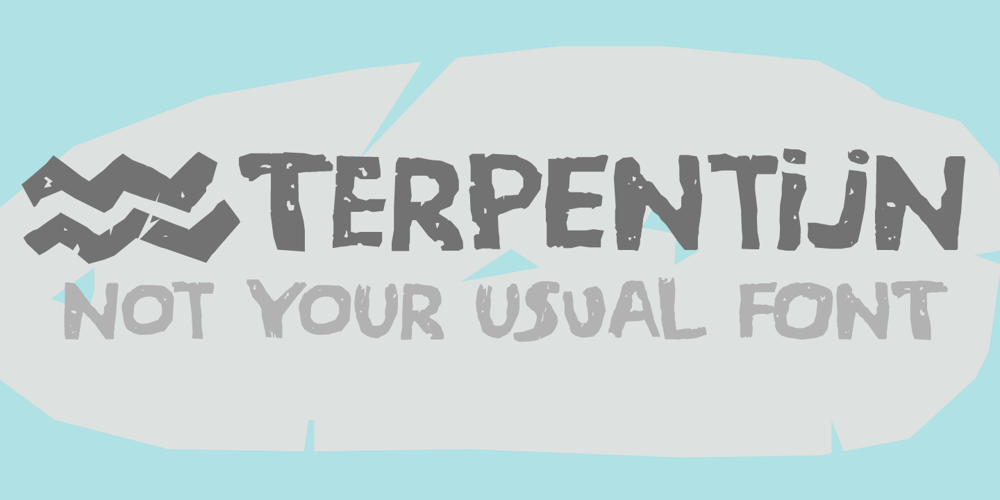
Terpentijn
Terpentijn font
Terpentijn Font Family was designed by David Kerkhoff and published by Hanoded. Terpentijn contains 3 styles and family package options. Terpentijn is Dutch for Turpentine. If you say it out loud, it actually sounds quite similar! Here you thought you were just buying a font, but you get to learn some Dutch too! Terpentijn is a handmade typeface with a serious twist. It is very uneven, very unusual, and, if I may say so myself, very adorable. Terpentijn has that ‘eroded’ look, which will make your designs stand out. It comes in a regular and an inline version, plus a handy shapes pack, which will add that extra wow to your work. Besides Dutch, terpentijn speaks a lot of languages!